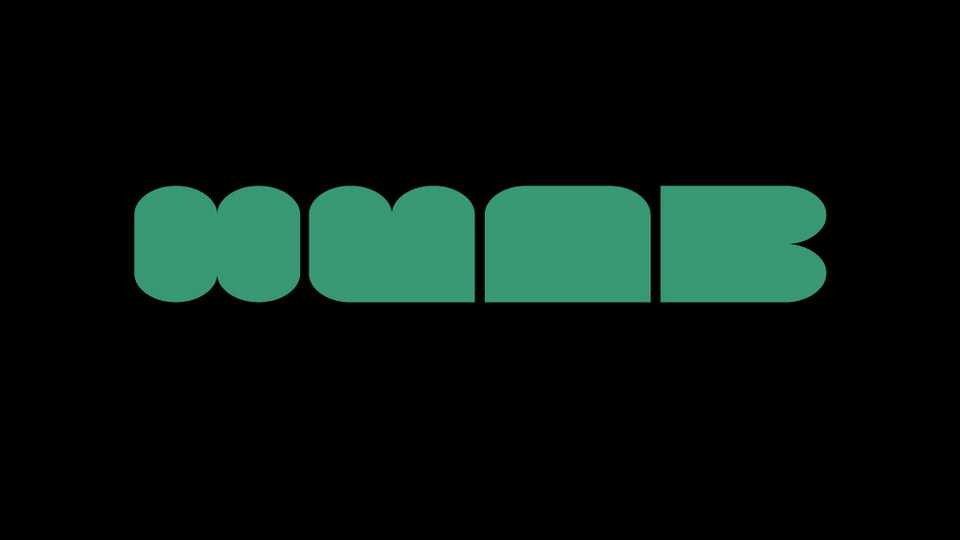
Download Huab font, a typeface made with minimal circles and squares. Huab is designed to eliminate font functionality, make it look like a geometric figure, and to be used as a design element.
Designer: Jeffery Kim